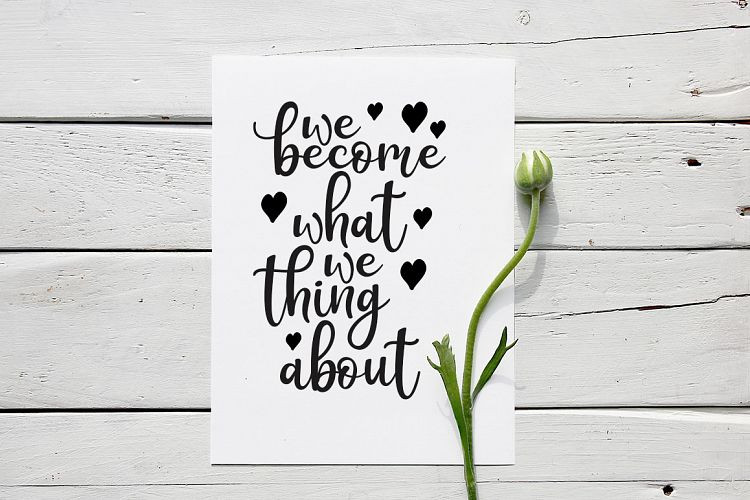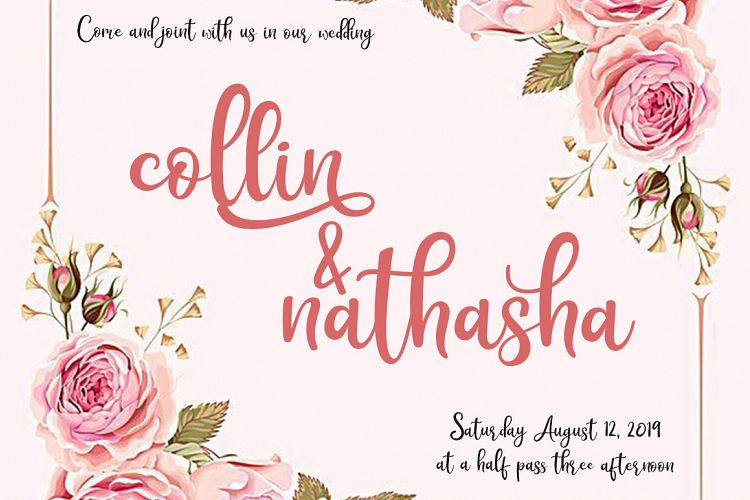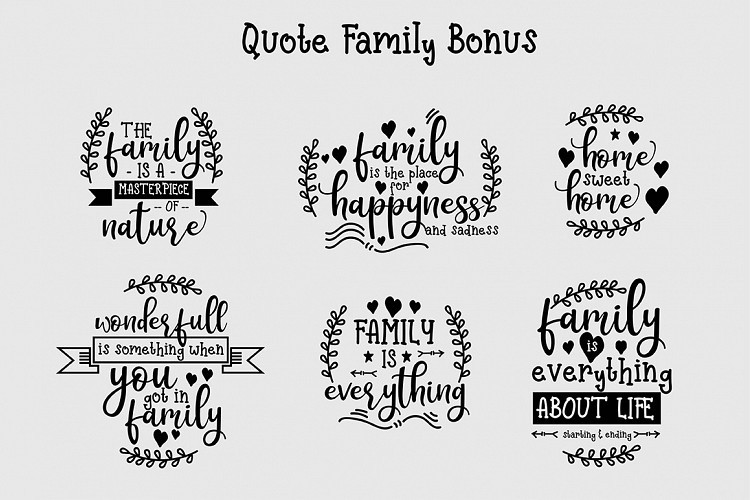
The Rothena Script Font
The Rothena Script Font – Free Demo
The Rothena Font– a beauty script font than just write. It’s calligraphy collection font with natural movement make looks elegant, classy and beauty for your latest project. Hand-lettered with style, Rothena Script is a must have for all your design needs. Perfect for greeting cards, branding, stationery design, social media, packaging, magazine layouts, prints and more!